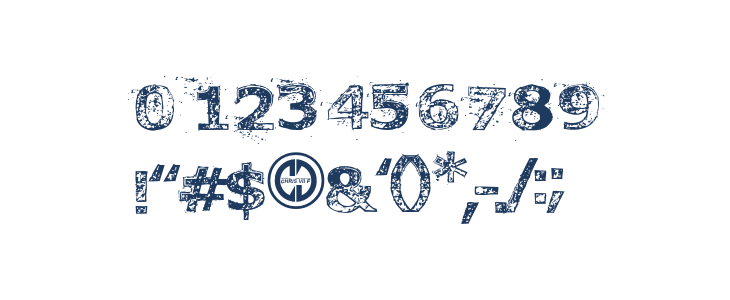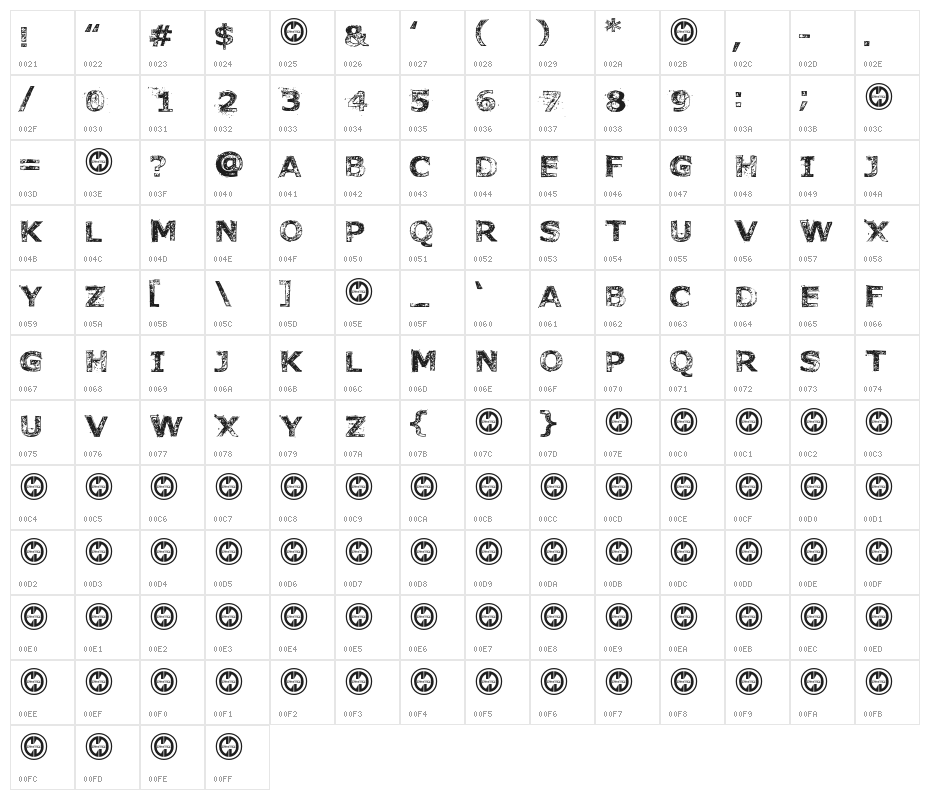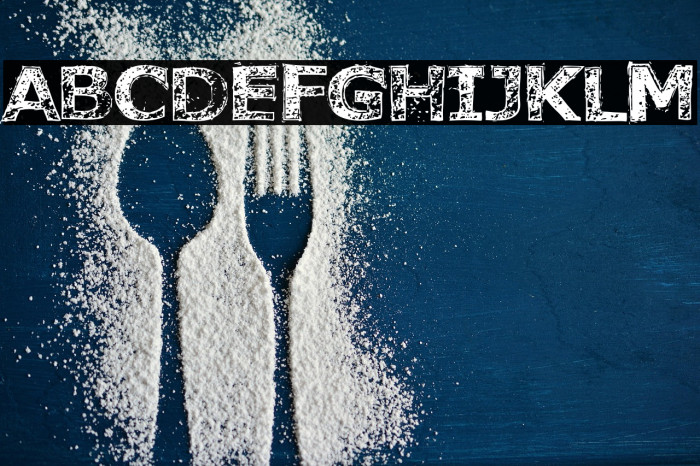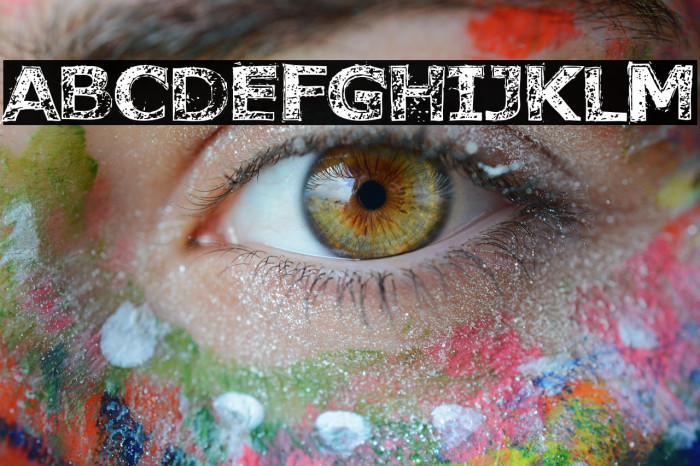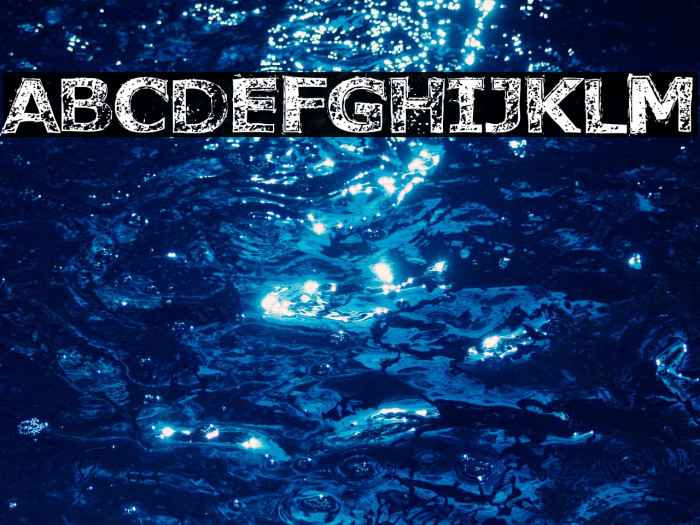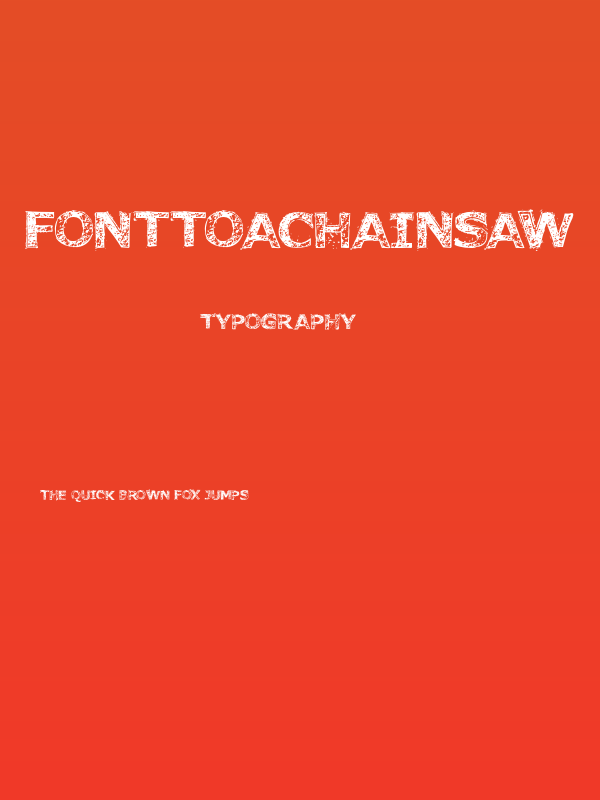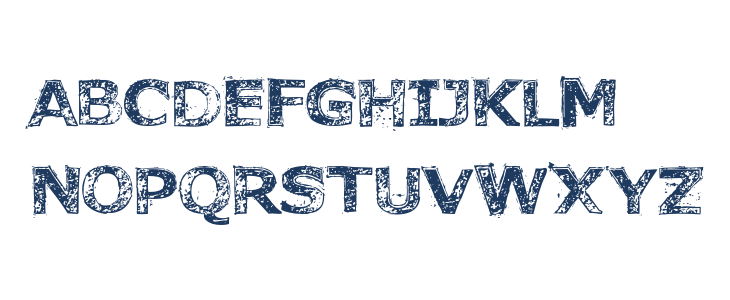
FonttoaChainsaw Font
FonttoaChainsaw Description
This font features a rugged, distressed style with a bold and impactful appearance. Each character is designed with a textured, worn effect, giving it a gritty, industrial feel. The uppercase and lowercase letters maintain a consistent design, with a slightly uneven texture that adds to the overall raw aesthetic. The numbers and special characters follow the same distressed pattern, ensuring a cohesive look across all elements. This font is ideal for projects that require a bold statement with a touch of edginess.
| Proposed Projects | Perfect for posters, album covers, branding for edgy products, or any design needing a bold, gritty impact. |